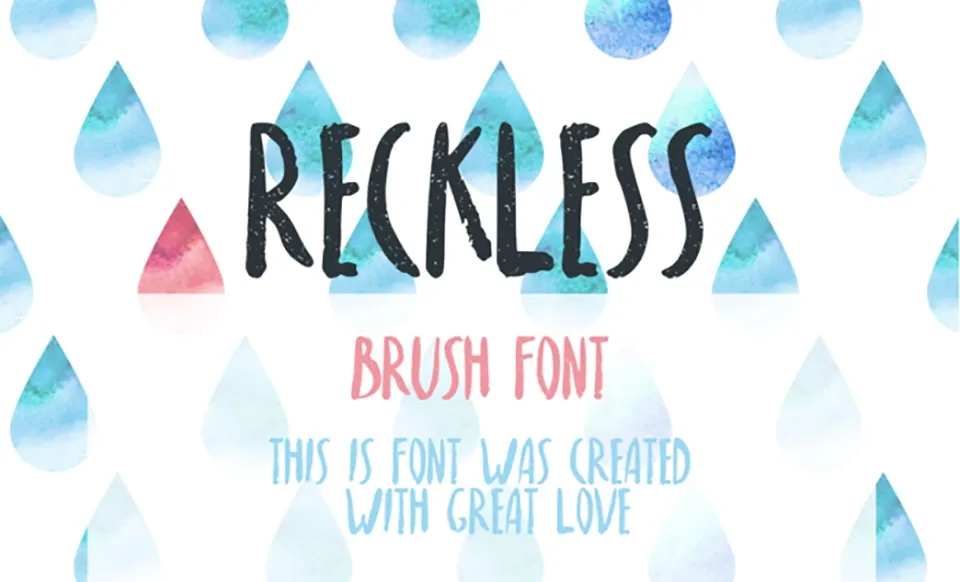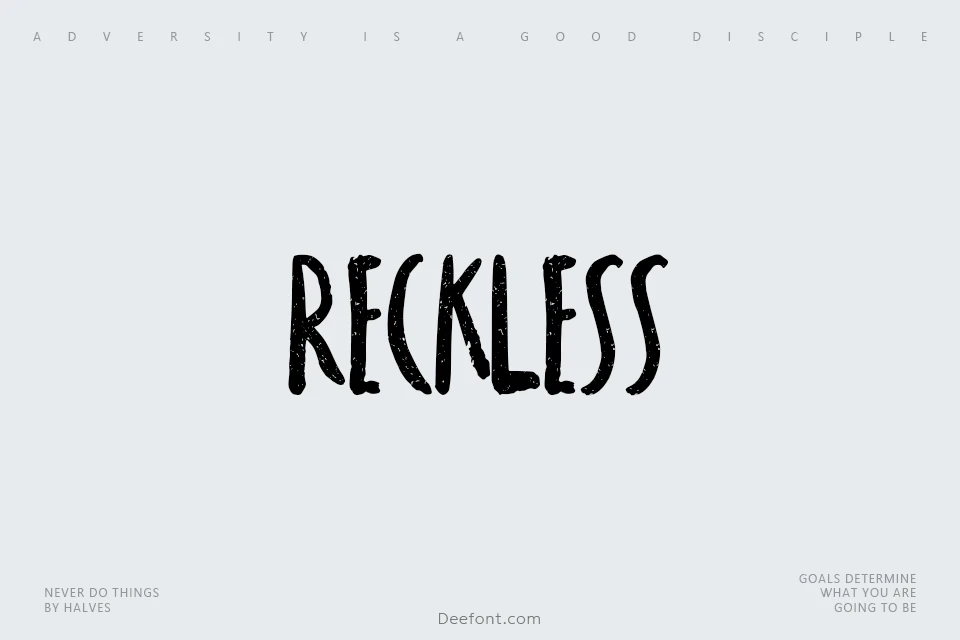
Reckless Font
Reckless Font a bold brush font designed to make a statement. This hand-lettered typeface features thick, rough edges, giving it a distinct and expressive character. It often comes as part of a duo, paired with a complementary all-caps sans-serif font for versatility. Reckless includes uppercase and lowercase letters, numbers, punctuation, and special features like ligatures and stylistic alternates. Ideal for creating impactful quotes, logos, titles, posters, greeting cards, and social media posts, Reckless adds a strong, personal touch to various creative projects.